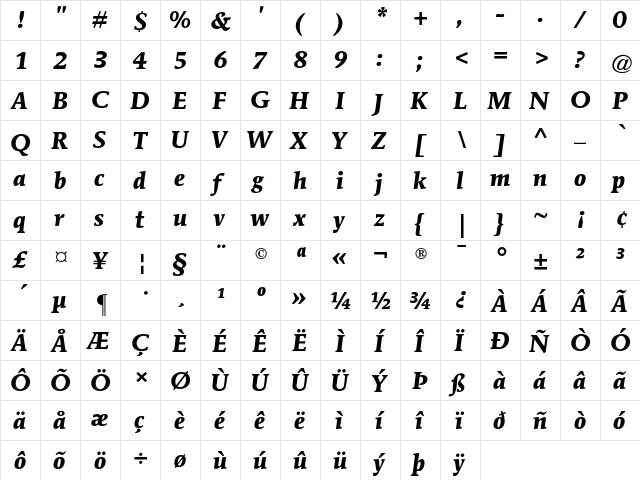
Mendoza Roman AT Bold Italic
Design Context for Mendoza Roman AT Bold Typeface
Mendoza Roman AT Bold is a composed and adaptable typeface that performs quietly and consistently across a wide range of design contexts. The slanted form adds forward momentum and visual energy. Its bold stroke weight gives it real presence on the page.
Pro Tip: Try Mendoza Roman AT Bold for annotation and caption copy alongside an upright companion — the contrast in angle creates a dynamic but ordered typographic system.